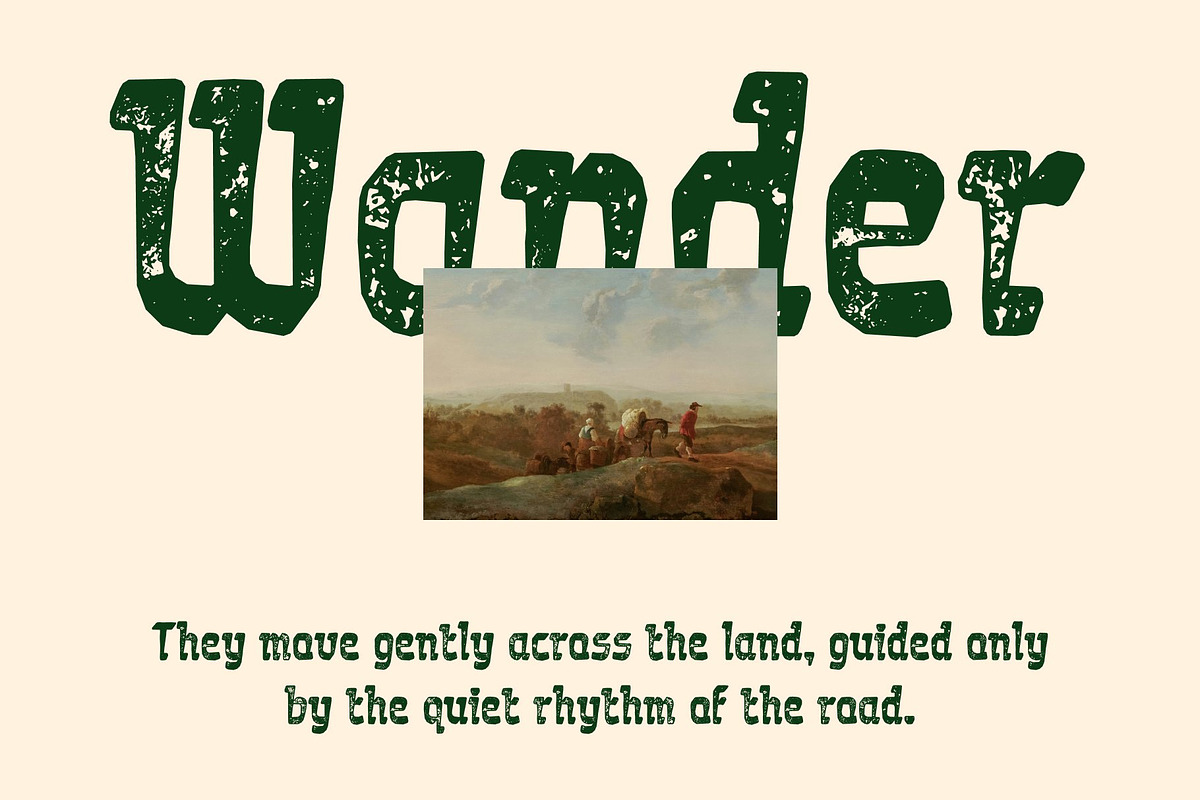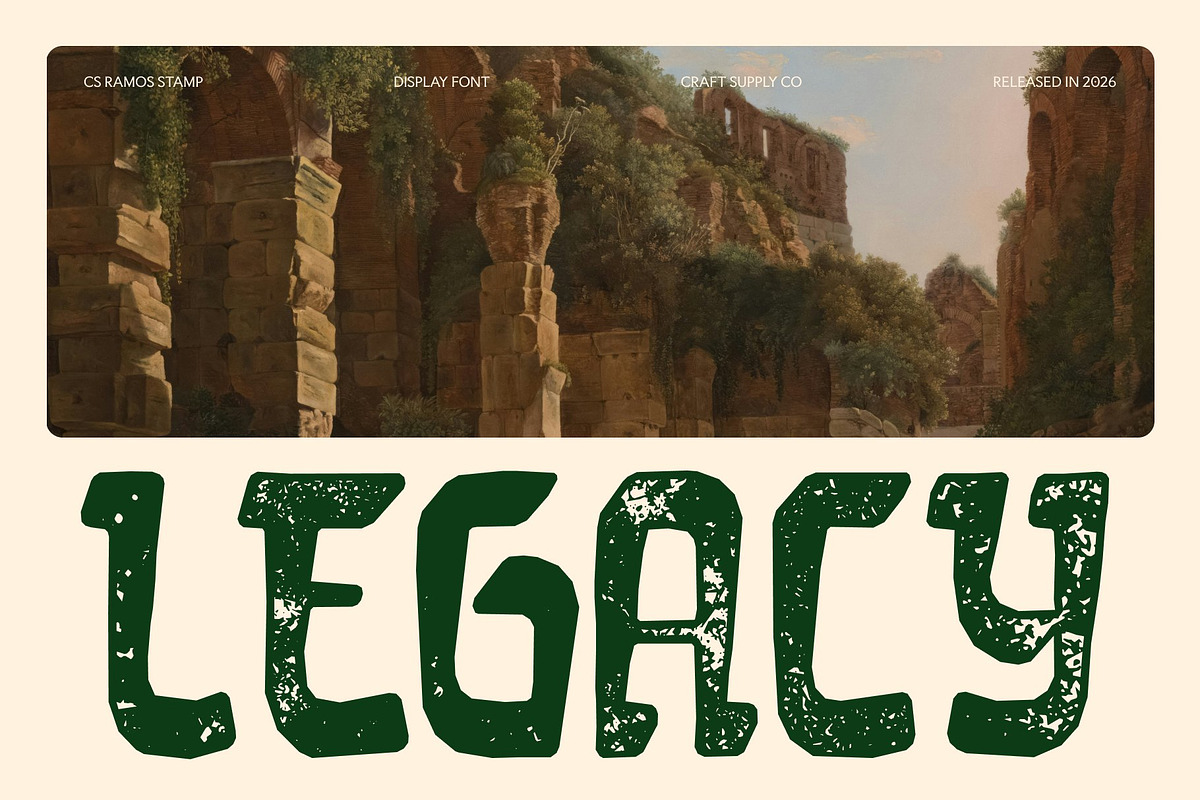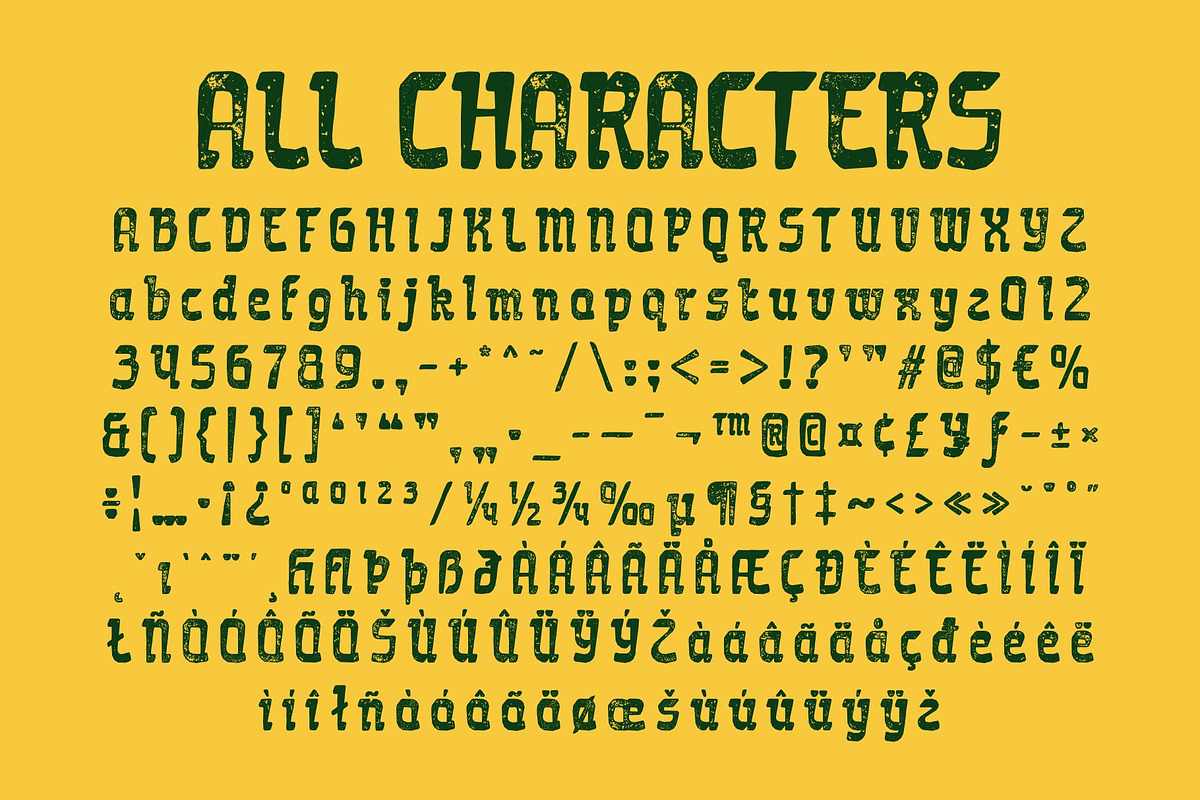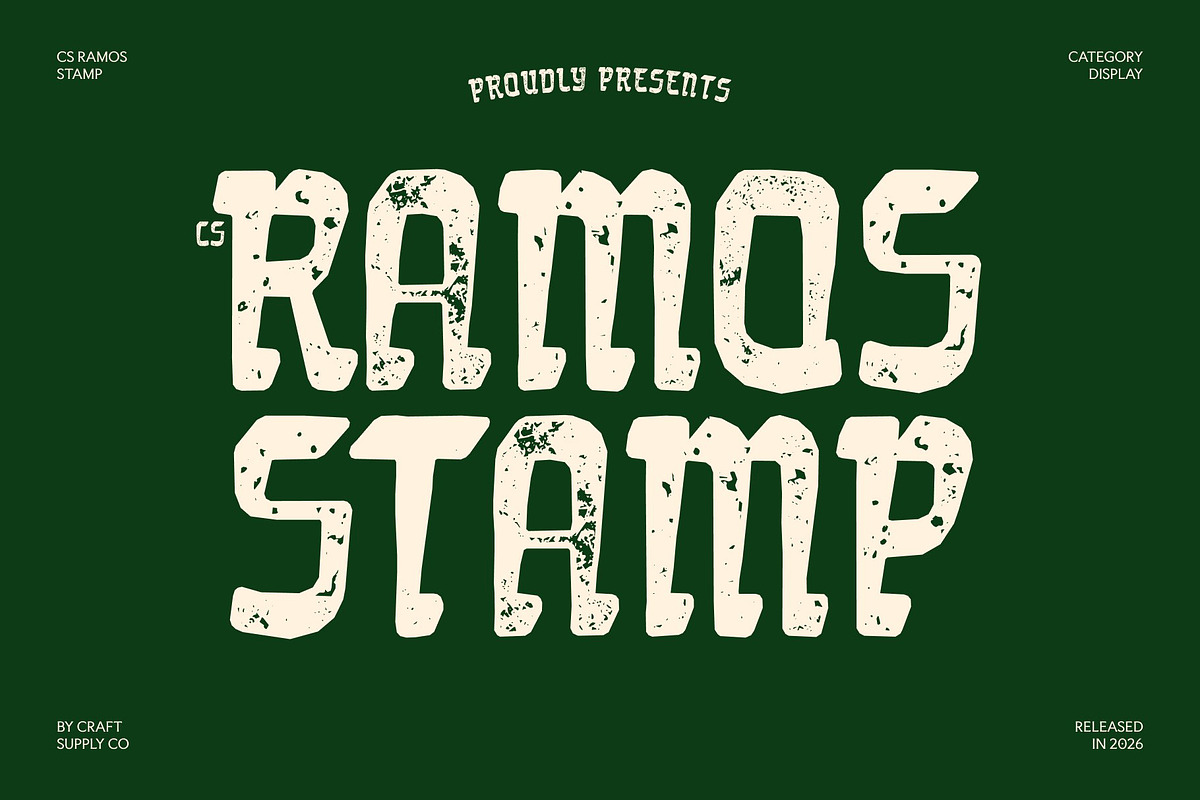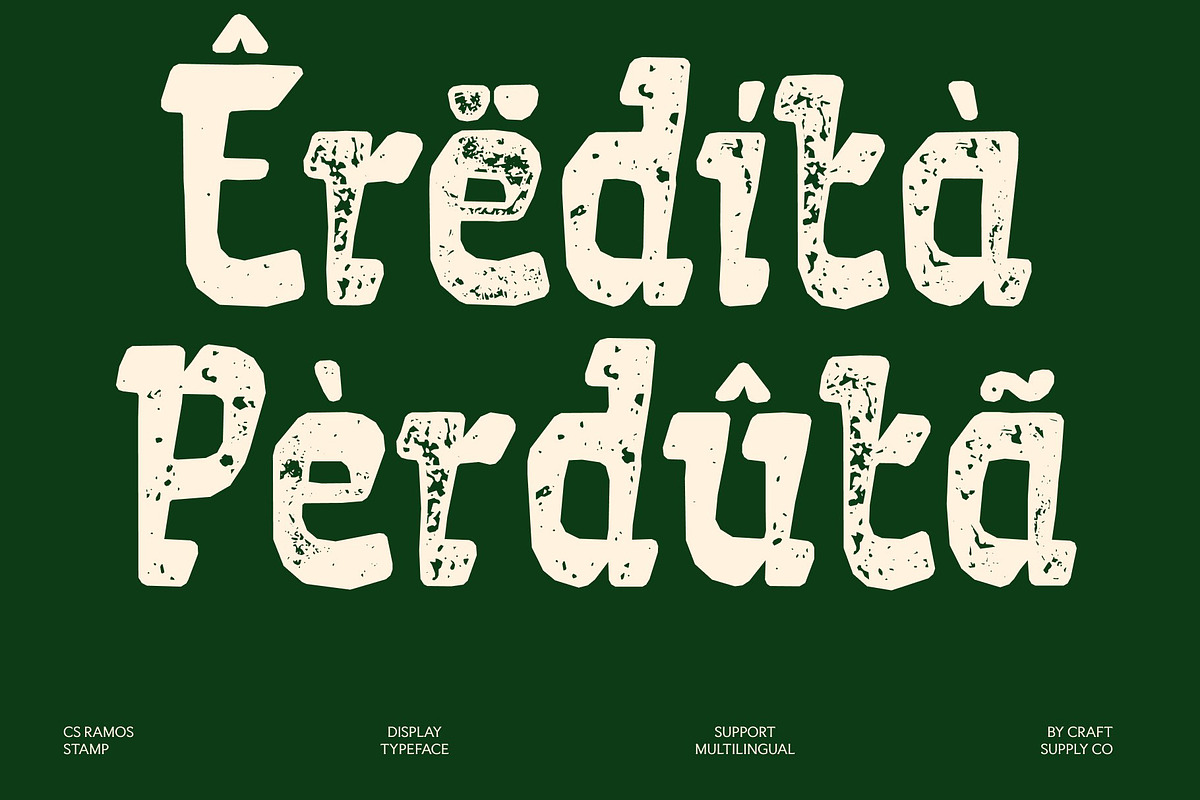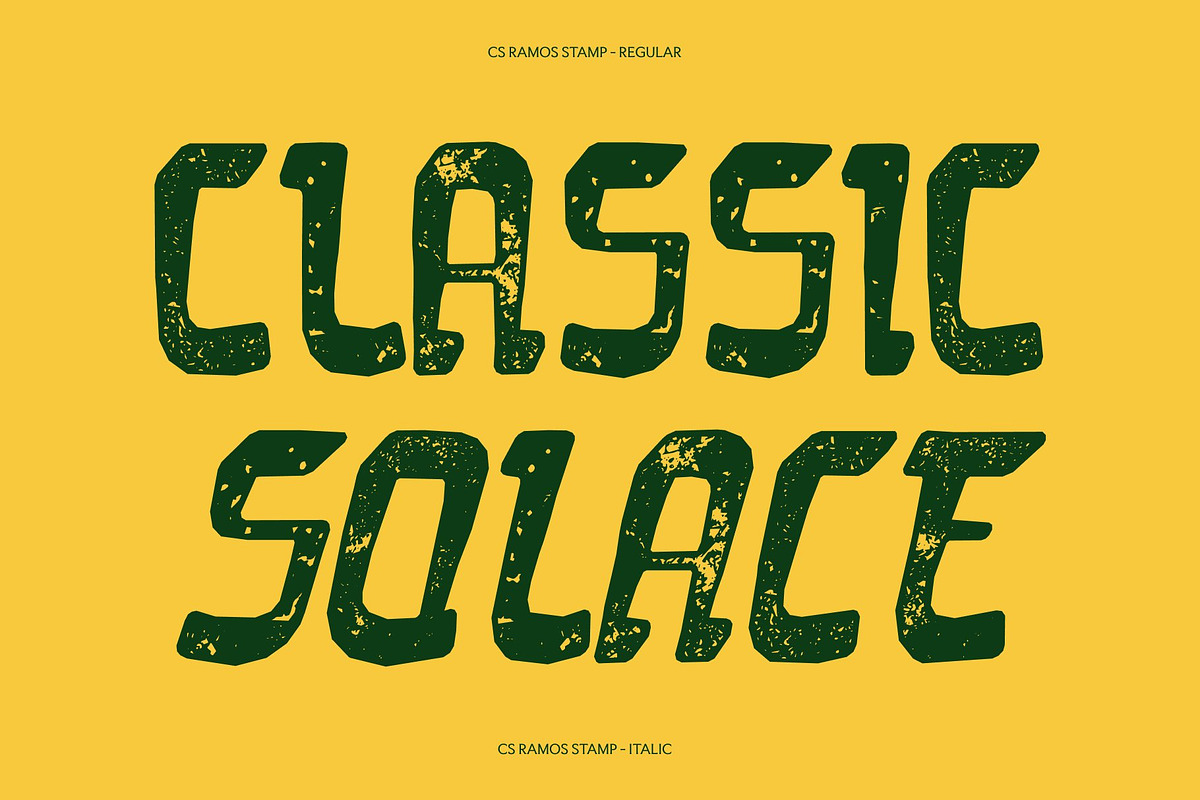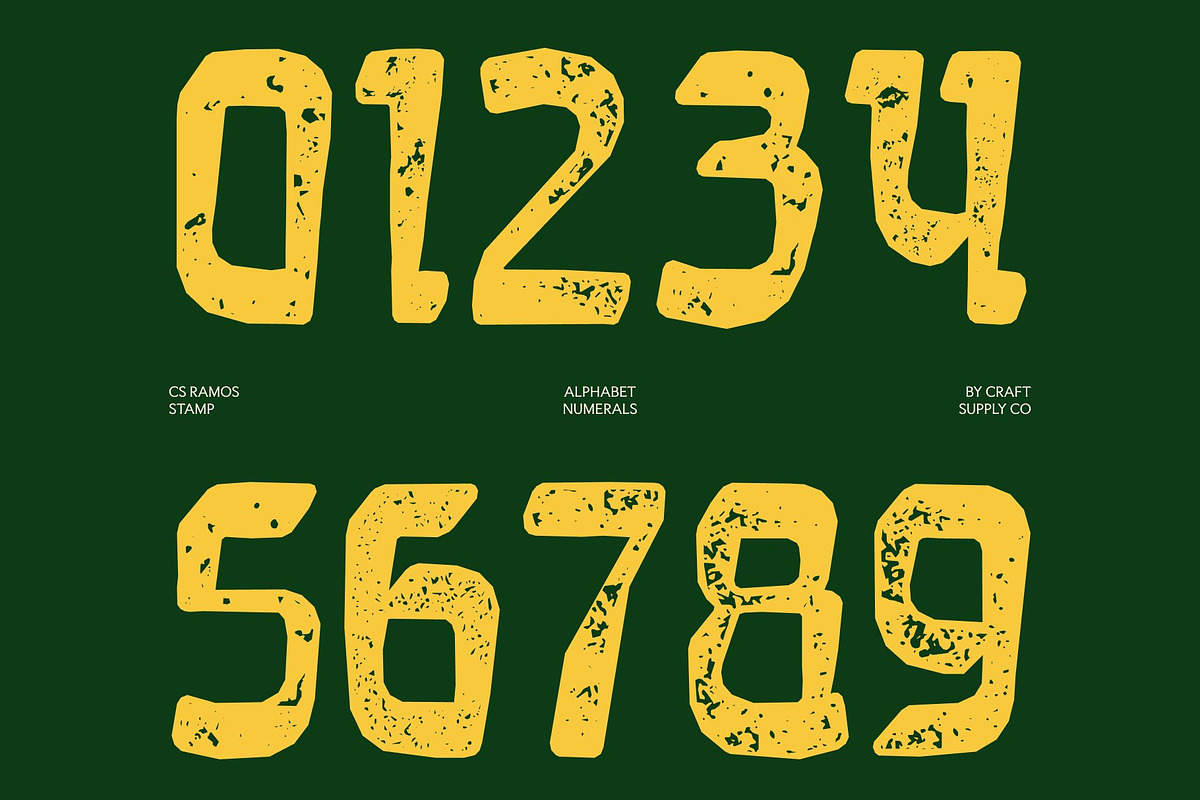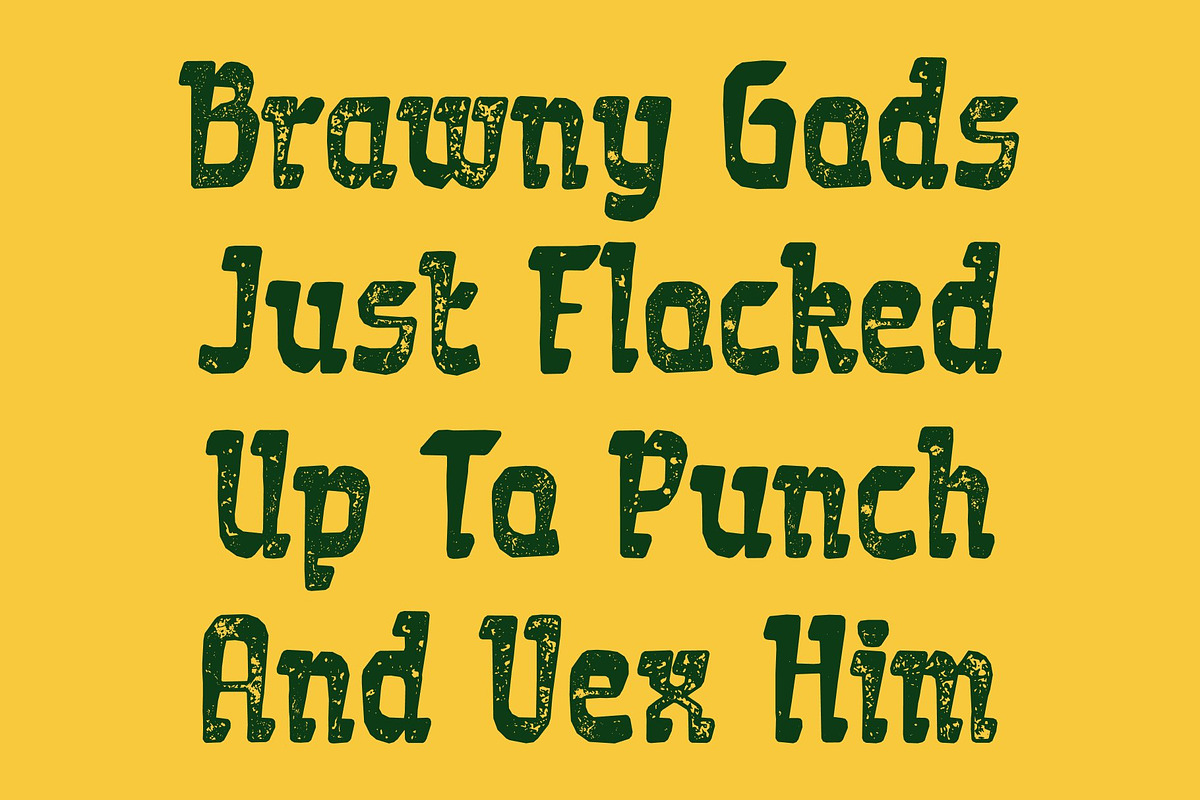
CS Ramos Stamp
CS Ramos Stamp – Funky Display Font: Where Bold Creative Energy Meets Vintage Stamp Texture
Bold Expressive Forms with Playful Personality This is a lively and funky display font designed to radiate pure creative energy through bold and expressive letterforms. Its playful shapes and dynamic structure create a vibrant visual identity filled with movement, fun, and artistic personality. Every character feels energetic and eye-catching, making the font perfect for standout creative projects and expressive display compositions.
Stamp Texture with Authentic Vintage Character This font features rough and uneven detailing that adds vintage authenticity and tactile visual depth. This distressed effect creates a worn handcrafted appearance reminiscent of retro print techniques, old posters, and stamped graphics. The result is a design that feels nostalgic, artistic, and full of unique character.
Retro Playfulness with Artistic Expression This font delivers a typographic identity that feels energetic, creative, and visually engaging. Its bold expressive forms combined with distressed texture evoke retro music culture, handmade poster art, street-inspired visuals, and playful branding aesthetics.
Perfect for Posters, Music Visuals, and Creative Branding This is perfect for music-related visuals, bold posters, playful branding, event graphics, merchandise, album artwork, social media campaigns, and creative promotional materials. Its textured funky forms make it ideal for logos, headlines, apparel graphics, packaging, and visual identities that seek a lively and memorable appearance.